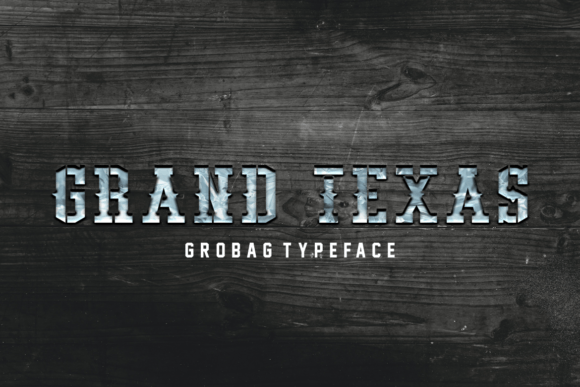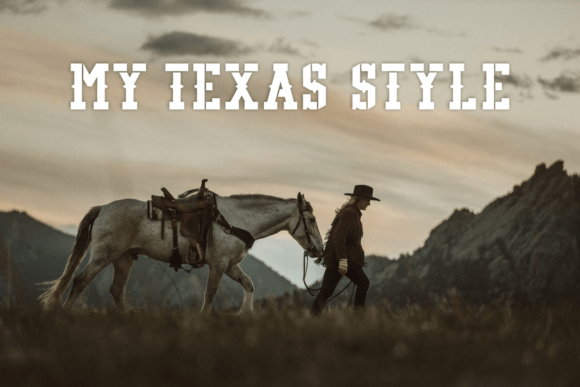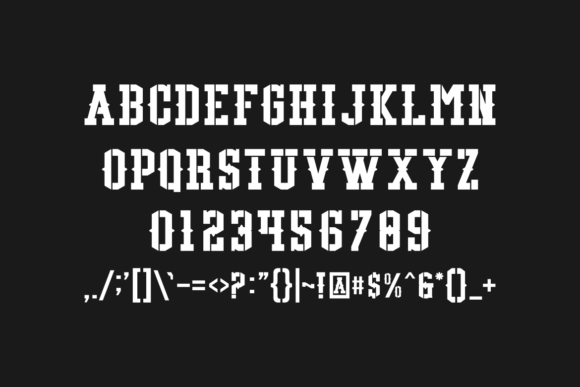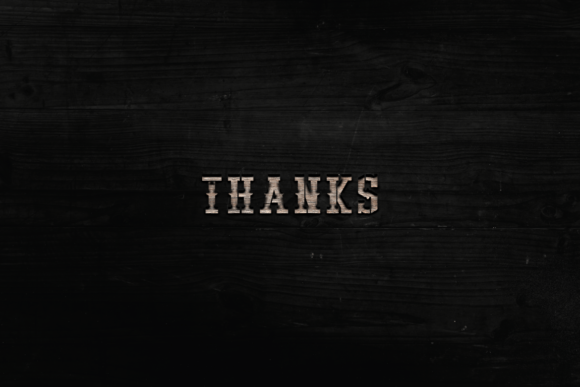
The Grobag Font: A Modern Display Font to Elevate Your Designs
I’ll never forget the time I was working on a project for a client who needed a bold, eye-catching font to make their brand stand out. I spent hours scouring the internet for the perfect font, but nothing seemed quite right. That was until I stumbled upon the Grobag font. **This cool and modern display font has been a game-changer for my design work, and I’m excited to share it with you!**
An Honest Review of Grobag Font
- ✨ **Unique and modern design**: Grobag font has a fresh and contemporary look that’s perfect for making a statement.
- ✅ **Highly versatile**: Whether you’re working on a logo, poster, or social media graphic, Grobag font can adapt to any design style.
- 💡 **Excellent for headlines and titles**: The font’s bold and attention-grabbing design makes it ideal for grabbing the reader’s attention.
While Grobag font is an excellent addition to any design project, there are a few things to keep in mind:
- 🤔 **Limited use for body text**: Due to its bold design, Grobag font may not be the best choice for large blocks of text.
- ⚠️ **May not work well with smaller font sizes**: Grobag font can become a bit too bold and overpowering when used at smaller font sizes.
The Backstory of Grobag Font
Grobag font was designed by a team of creatives who wanted to create a modern and versatile font that could be used for a wide range of design projects. Inspired by the latest design trends and typography styles, Grobag font was crafted to be both bold and elegant. **The designers aimed to create a font that would be perfect for headlines, titles, and other display text, while also being easy to read and understand.**
Q: What is Grobag font best used for?
A: Grobag font is best used for headlines, titles, and other display text where you want to make a bold statement.
Q: Can I use Grobag font for body text?
A: While Grobag font can be used for body text, it’s not recommended due to its bold design. Instead, use it for headings and titles to add visual interest.
Q: Is Grobag font suitable for digital use?
A: Yes, Grobag font is optimized for digital use and can be used for a wide range of digital projects, including social media graphics, websites, and more.